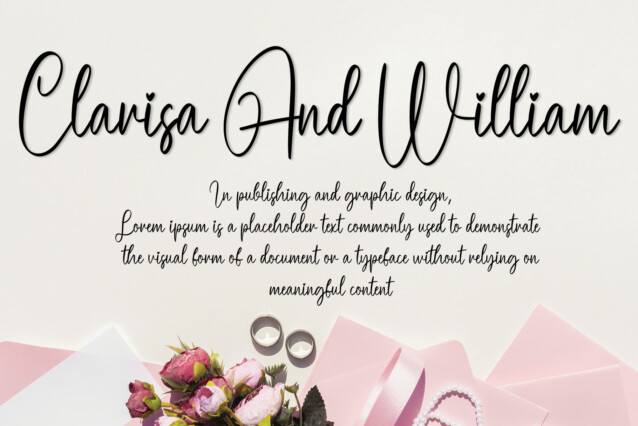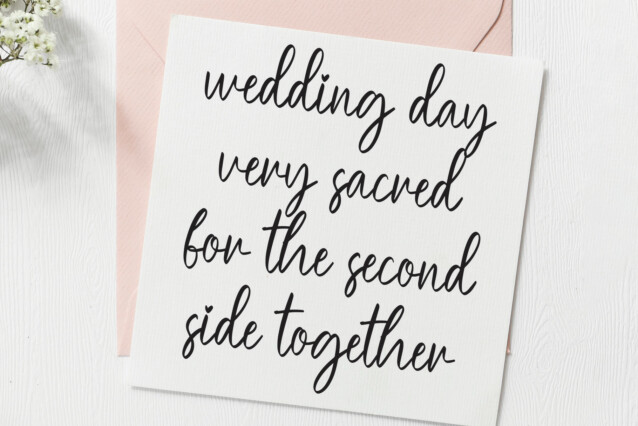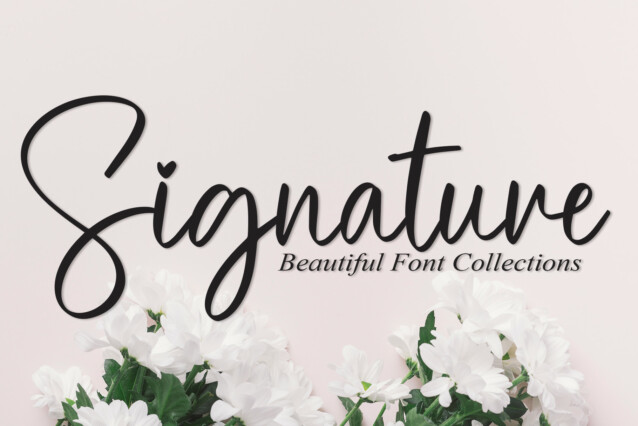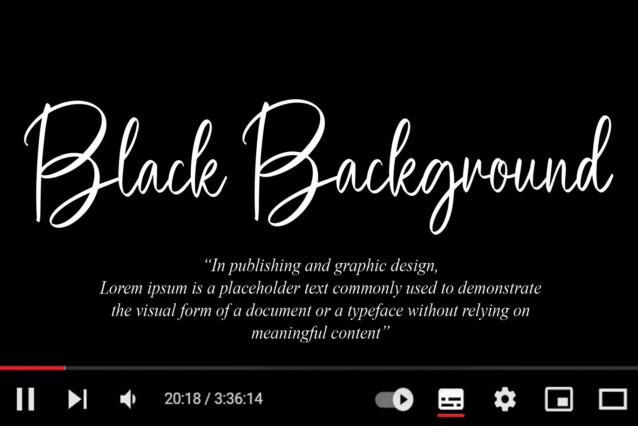
Hello Brother Script Font
Hello Brother Script Font is a dazzling script font. This font is neatly crafted and highly detailed. Whatever the topic, this font will be a wonderful asset to your font library, as it has the potential to enhance any creation.